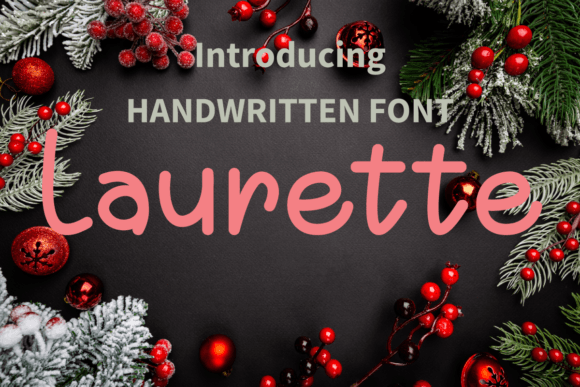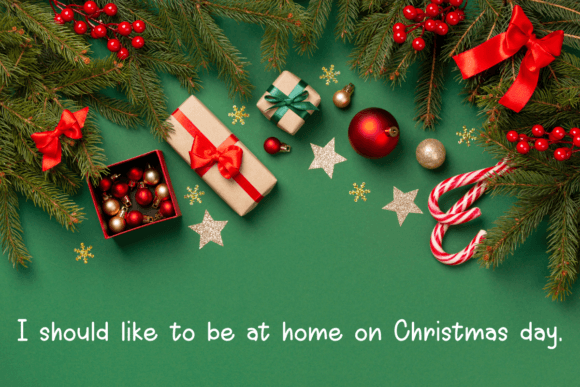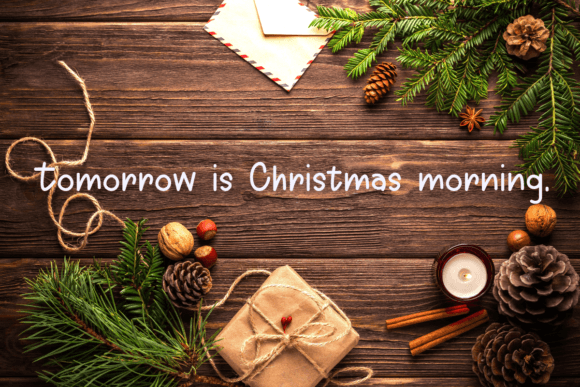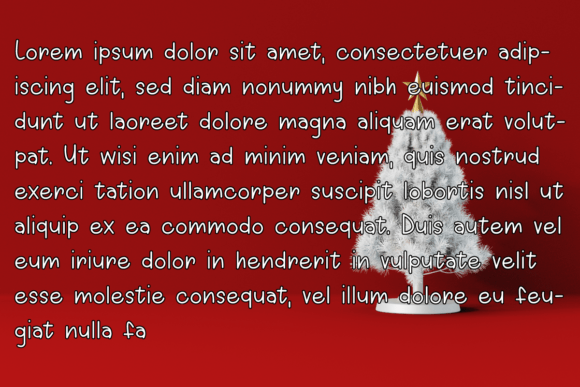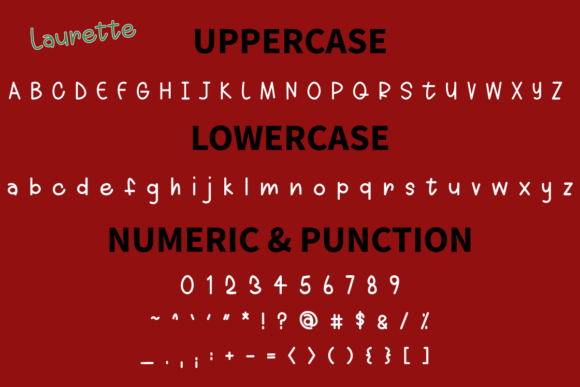
Laurette Font
About Laurette Font
**Laurette Font: A Whimsical and Friendly Handwritten Typeface**
Meet Laurette, a delightful handwritten font that exudes a fun and friendly vibe. With its whimsical and slightly quirky style, this font has the power to infuse a touch of brightness into all your design projects. Here’s why Laurette is the ideal choice for your creative endeavors:
**Whimsical Charm:** Laurette is brimming with whimsy, making it perfect for adding a playful and cheerful touch to your designs.
**Friendly Appeal:** This font’s friendly and approachable style resonates with audiences of all ages, ensuring your message is universally relatable.
**Brighten Your Designs:** Incorporate Laurette into your projects to instantly brighten them up, creating a positive and inviting visual experience.
**Versatile Use:** Laurette is versatile and adaptable, suitable for a wide range of design applications, from logos and wedding invitations to quotes, advertisements, print materials, and magazines.
**Logo Brilliance:** Craft eye-catching logos that stand out with Laurette’s distinctive and charming lettering, giving your brand a memorable identity.
**Wedding Invitations:** Create wedding invitations that reflect the joy and excitement of the special day with Laurette’s playful yet elegant style.
**Quirky Quotes:** Transform quotes, sayings, and phrases into visually appealing graphics that captivate your audience’s attention.
**Ad Campaigns:** Incorporate Laurette into your advertising campaigns to convey a sense of friendliness and approachability, making your brand more relatable.
**Magazine Magic:** Enhance your magazine layouts with Laurette to add a touch of whimsy and make your content more engaging.
**Print Perfection:** Whether you’re designing brochures, flyers, or posters, Laurette’s lively lettering enhances your print materials, making them more appealing.
**Digital Delight:** Use Laurette in your digital designs, such as social media graphics and website elements, to create an inviting online presence.
**Universal Appeal:** Laurette’s charm appeals to a broad audience, making it suitable for projects targeting diverse demographics.
**Creative Freedom:** Explore the creative freedom Laurette offers, allowing you to experiment with playful typography in your designs.
**Visual Storytelling:** Let Laurette enhance your visual storytelling, adding a layer of whimsy and character to your narratives.
**Love the Results:** Add Laurette to your projects with confidence, knowing that its fun and friendly style will infuse life into your designs, leaving a lasting impression.
**Upgrade Your Toolkit:** Incorporate Laurette into your design toolkit and discover how its whimsical charm can elevate your creative projects.
**Design with Laurette:** Embrace the playful spirit of Laurette and see how it can transform your designs into vibrant and captivating creations.
**Enhance Your Creativity:** Laurette allows you to tap into your creativity and leverage its charm to create visually stunning and inviting designs.
**Design with Confidence:** Design with Laurette, and let its whimsical and friendly nature become a valuable asset in your creative toolbox.
**Make Every Design Shine:** Use Laurette to ensure that every design you create shines with a touch of playful charm and universal appeal.